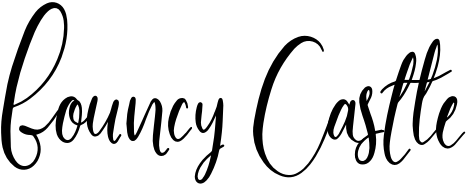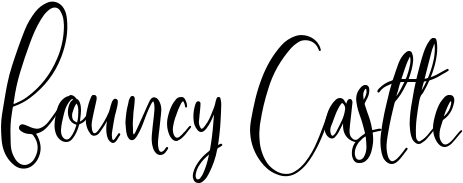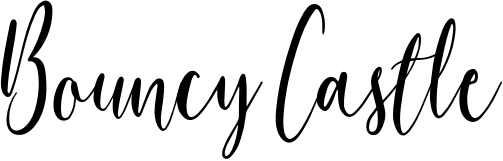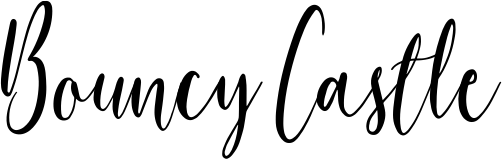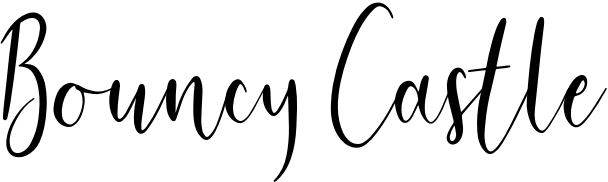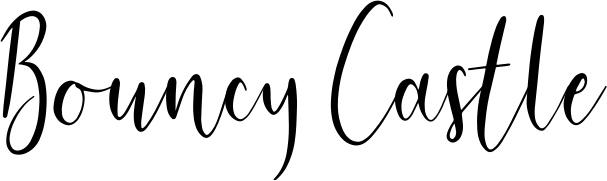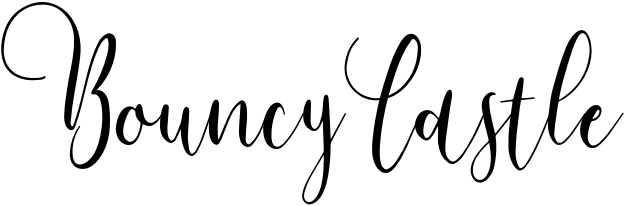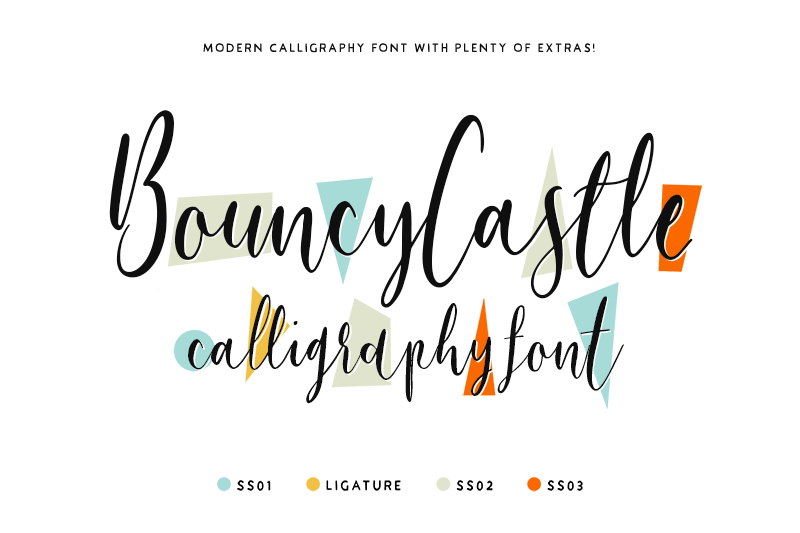
Bouncy Castle
Say hello to Bouncy Castle! A playful, handwritten, and modern calligraphy font family with 4 sets of alternative letter styles to effortlessly switch between for maximum creativity and authenticity.
The family was designed to look incredible within wedding and event invitations, flyers and other printouts, logos and branding, apparel, and everything in between. ItÂ’s a truly flexible family and I hope that you love it as much as I do.